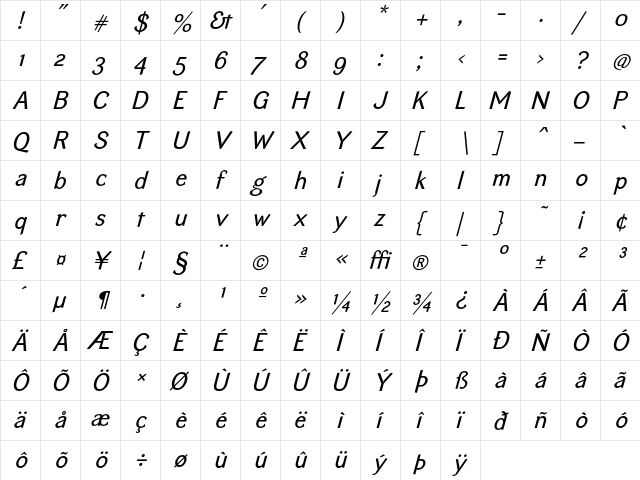
EquipoizeSans RegularItalic
Design Context for EquipoizeSans Typeface
EquipoizeSans is a composed and adaptable typeface that performs quietly and consistently across a wide range of design contexts. Its italic angle brings a sense of urgency and motion to the letterforms.
Pro Tip: Use EquipoizeSans for emphasis, pull quotes, and subheadings where its slanted energy can add rhythm to the layout.